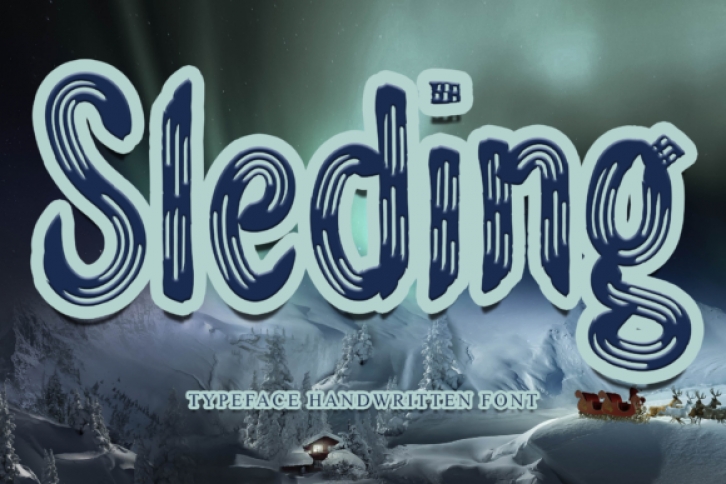
Sleding is a fun, urban styled and incredibly adaptable display font. No matter the topic, this font will be an incredibly asset to your fonts’ library, as it has the potential to elevate any creation.